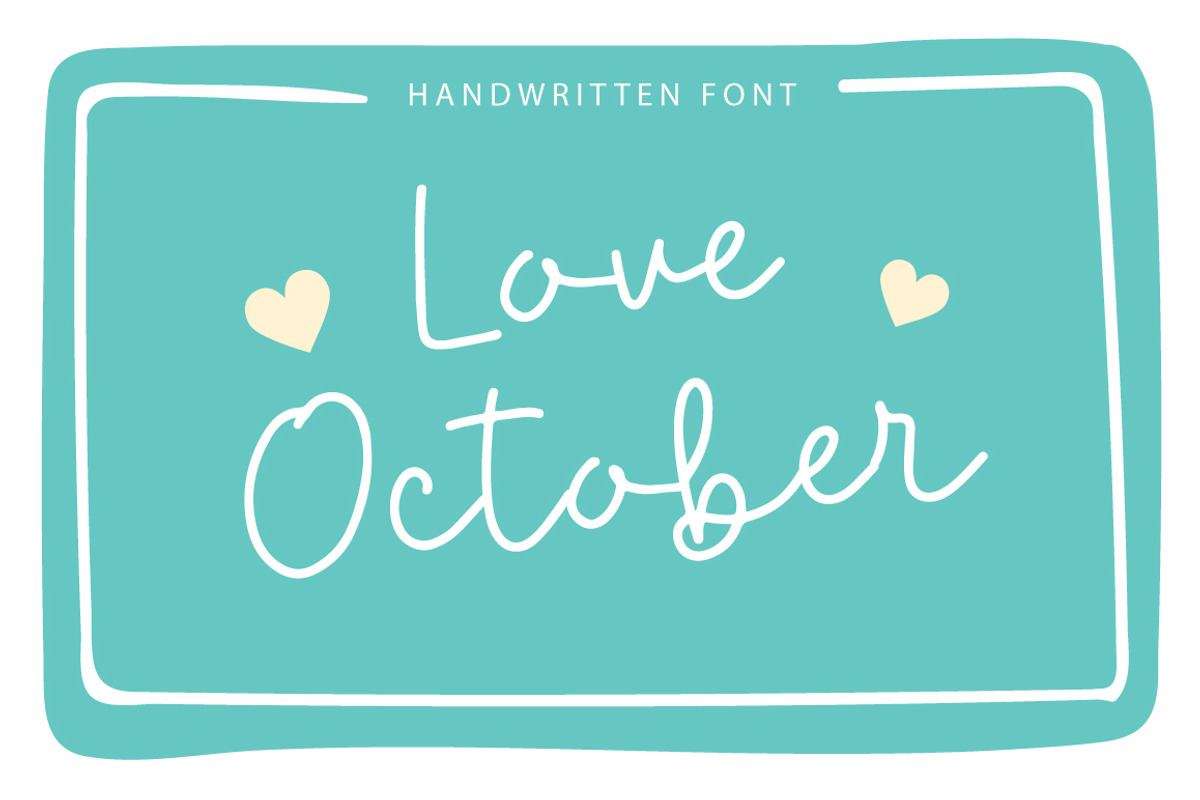
Love October | Handwritten Font Free Download is a beautiful and elegant script typeface designed with smooth, flowing strokes to give your designs a personal and artistic touch. Its handwritten style makes it perfect for creating invitations, branding, social media graphics, quotes, and more. The font adds a warm, intimate feel to any project, evoking a sense of love and creativity.
Whether you're designing for a romantic brand, crafting a personalized invitation, or working on casual yet elegant content, Love October brings a unique and charming feel to your typography.